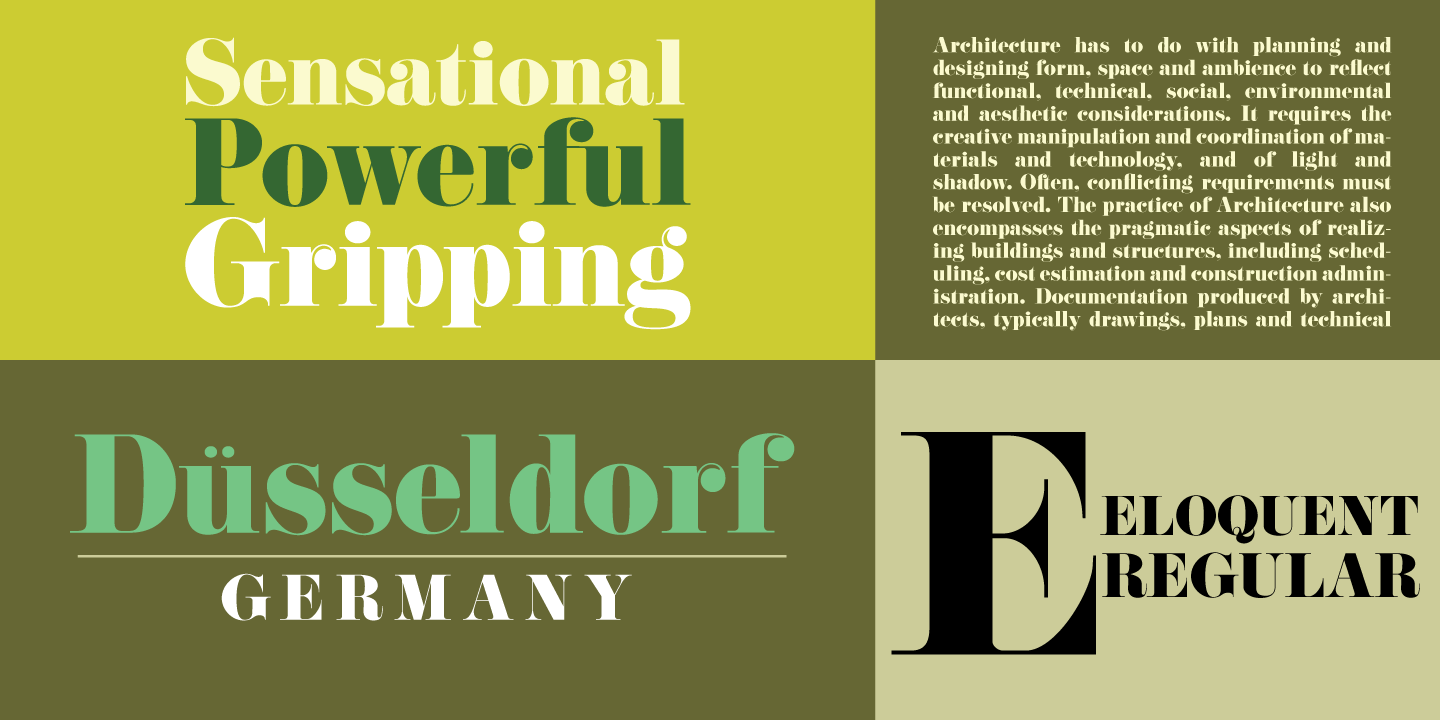
Eloquent JF Pro Font Free Download is a refined and intelligent serif typeface designed to convey sophistication, clarity, and timeless elegance. With its high contrast strokes and typographic finesse, this font is ideal for projects that demand both aesthetic beauty and professional tone. Please note that you must purchase this font for commercial use. It is available for free download for personal and testing purposes only.
You can use Eloquent JF Pro Font in book design, editorial layouts, formal invitations, academic journals, upscale branding, law firm identities, publishing houses, and luxury magazines where polished communication is essential.
What makes Eloquent JF Pro so exciting is how it manages to be both classic and contemporary. Its sharp serifs, subtle curvature, and typographic nuance make it stand out in high-end design. It speaks with authority and grace — the kind of font that makes your message look smarter.
The Eloquent JF Pro Font family may include Regular, Italic, Bold, Display, and Small Caps versions, along with advanced typographic features such as ligatures, old-style figures, and multilingual support, giving designers a rich palette to work with.
If you're seeking a font that elevates your design with intellect and style, Eloquent JF Pro Font Free Download is the articulate solution you’ve been looking for. Download it today and let your work speak volumes with typographic sophistication.